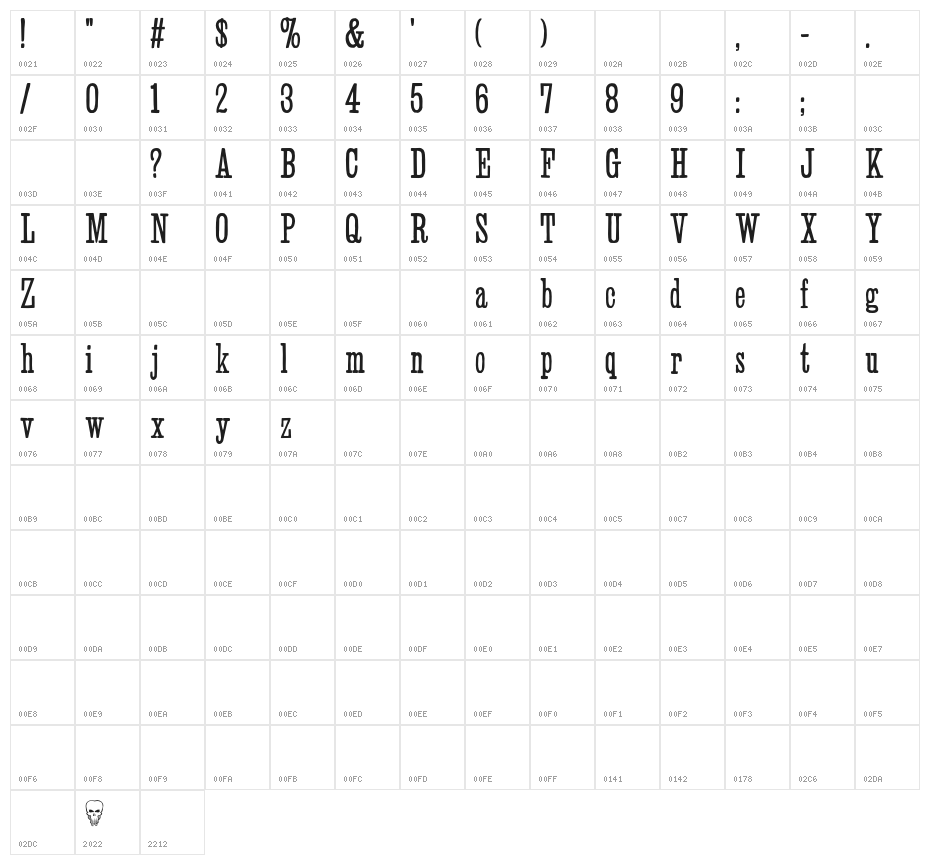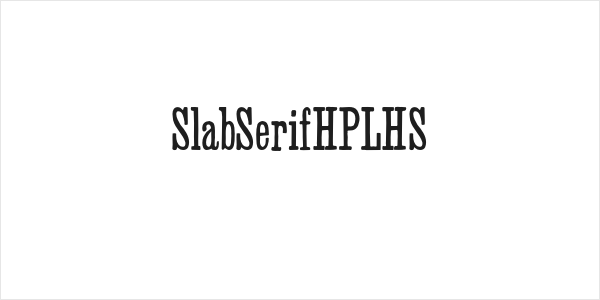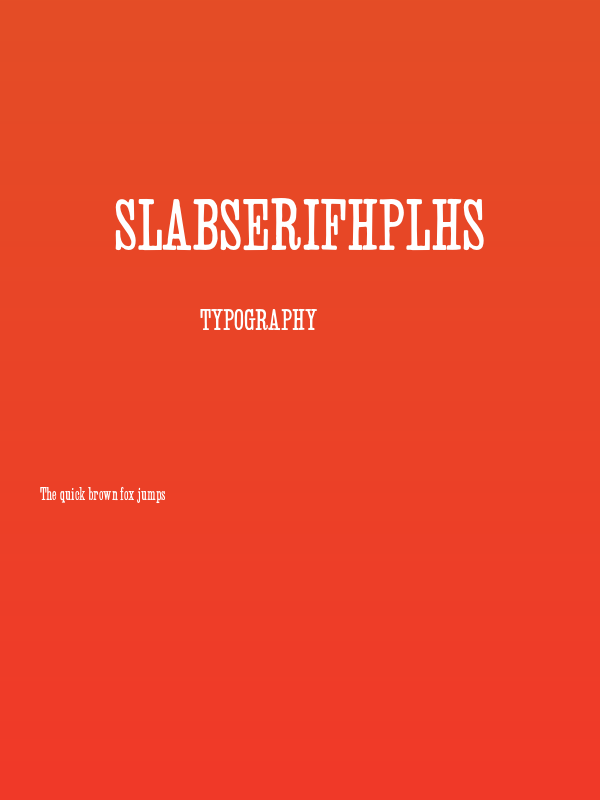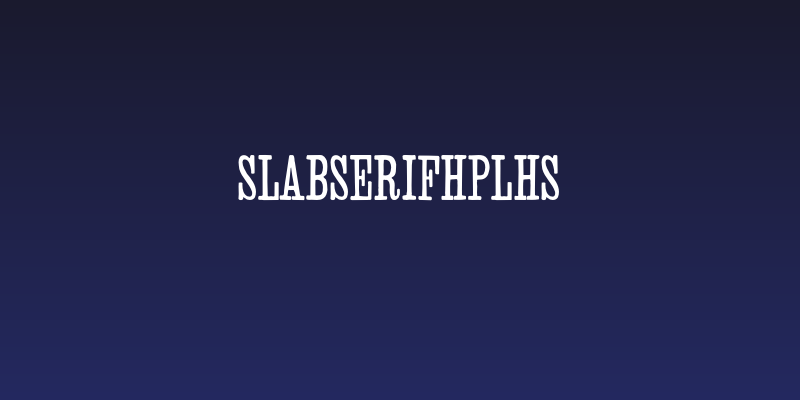
SlabSerifHPLHS Font
SlabSerifHPLHS Description
This font features a bold and robust slab serif style, characterized by thick, block-like serifs that give it a strong and authoritative presence. The uppercase letters are tall and commanding, while the lowercase letters maintain a consistent weight, ensuring readability. The numerals are clear and distinct, making them suitable for various applications. Special characters are crafted with precision, maintaining the overall aesthetic of the font. The design is both classic and modern, making it versatile for different design needs.
Overall StyleClassic
Proposed ProjectsIdeal for headlines, posters, branding, and editorial design where a strong, impactful presence is needed.